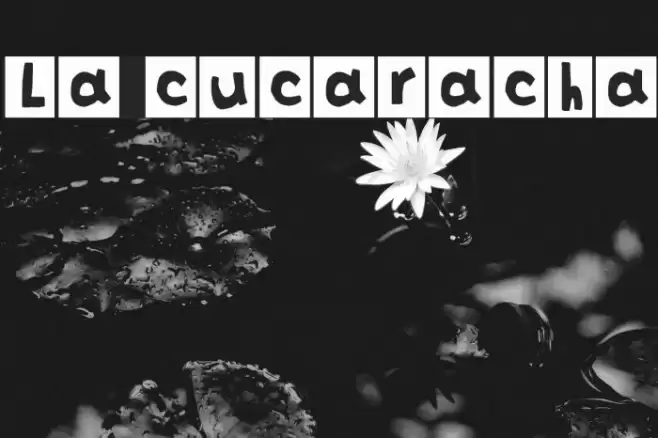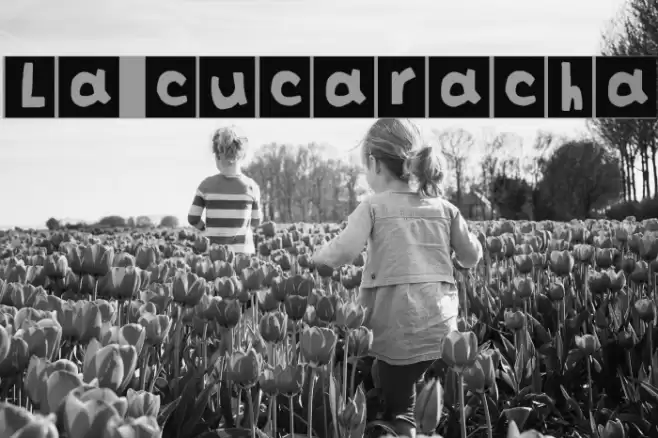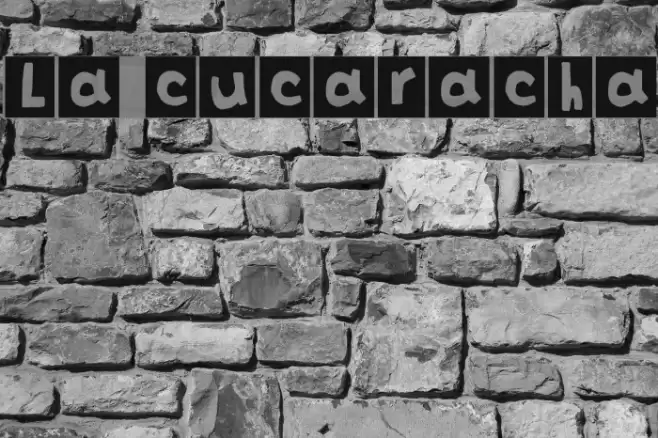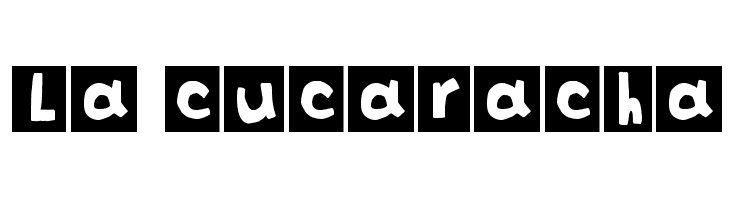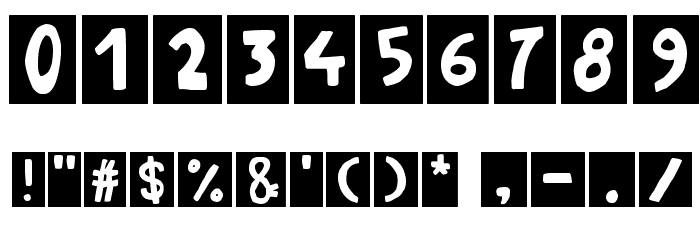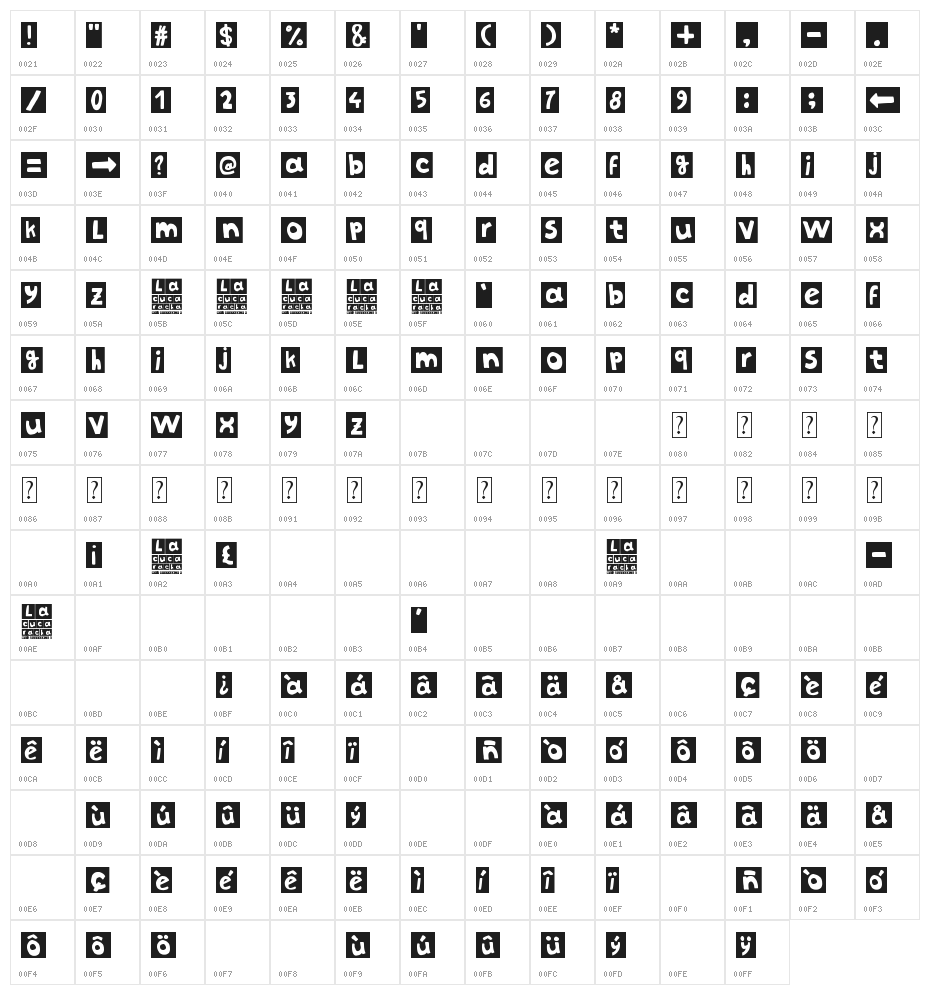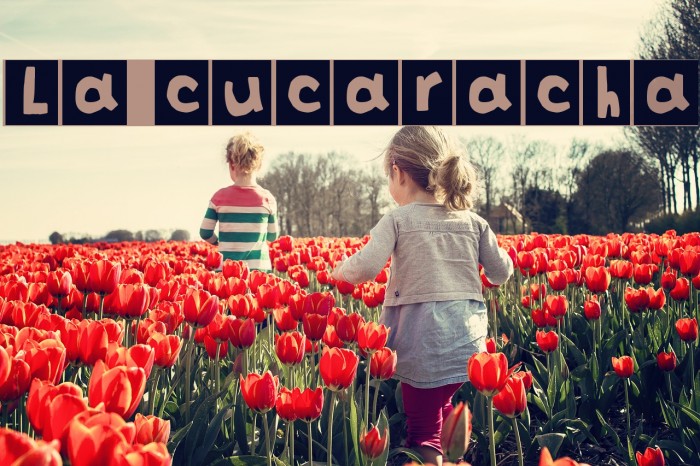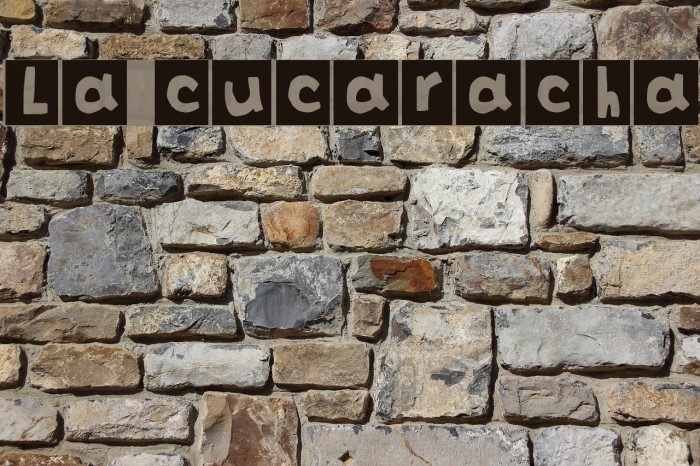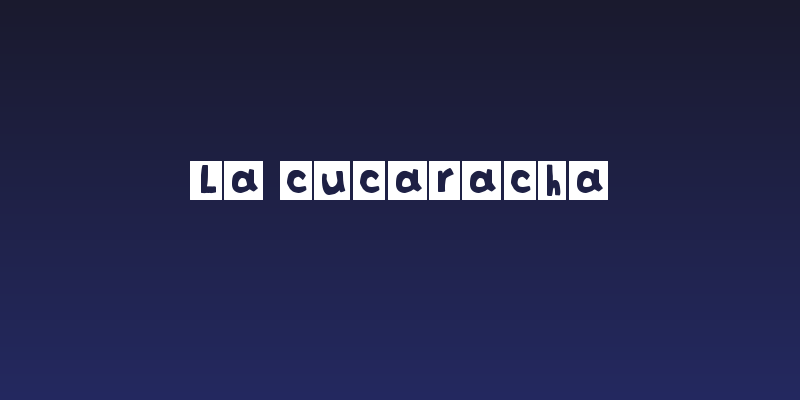
La cucaracha Font
La cucaracha Description
This playful and quirky font features bold, rounded characters with a hand-drawn appearance. Each letter is enclosed in a black square, giving it a distinctive and eye-catching look. The font's informal style is characterized by its uneven lines and whimsical shapes, making it perfect for projects that require a fun and casual vibe. The numbers and special characters maintain the same playful aesthetic, ensuring consistency across all text elements. The overall design is reminiscent of a child's handwriting, adding a touch of innocence and creativity.
A playful, hand-drawn font with bold, rounded characters in black squares from Decorative fonts.
- Proposed Projects: Ideal for children's books, playful branding, casual invitations, and creative posters.
- Overall Style: Playful, Quirky, Hand-drawn